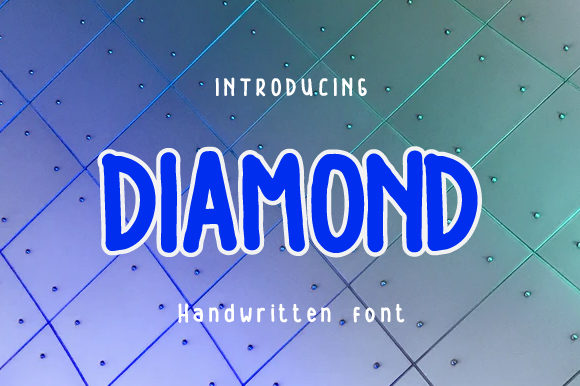
Diamond Font: A Simple yet Elegant Handwritten Font for Designers and Crafters
Diamond Font is a beautiful, simple, and natural handwritten font that has gained popularity among designers and crafters. Its elegance and versatility make it an ideal choice for various design projects, from logos and wedding invitations to headings, t-shirts, and more. In this article, we’ll explore the features and uses of Diamond Font, and why it’s a must-have for any designer or crafter.
What is Diamond Font?
Diamond Font is a handwritten font that exudes simplicity and elegance. Its natural and effortless look makes it perfect for designs that require a personal touch. The font is carefully crafted to ensure that it is legible and easy to read, making it suitable for a wide range of applications.
Features of Diamond Font
- Simple and Natural: Diamond Font has a simple and natural look that makes it perfect for designs that require a personal touch.
- Handwritten: The font is handwritten, which gives it a unique and elegant look.
- Legible: Diamond Font is carefully crafted to ensure that it is legible and easy to read.
- Versatile: The font can be used for various purposes, from logos and wedding invitations to headings, t-shirts, and more.
Uses of Diamond Font
Diamond Font is a versatile font that can be used for a wide range of design projects. Here are some of the most popular uses of the font:
- Logos: Diamond Font can be used to create beautiful and elegant logos for businesses and brands.
- Wedding Invitations: The font is perfect for wedding invitations, adding a touch of elegance and sophistication.
- Headings: Diamond Font can be used to create stunning headings for articles, blog posts, and other written content.
- T-shirts: The font can be used to create unique and stylish designs for t-shirts and other apparel.
- Letterhead: Diamond Font can be used to create elegant letterheads for businesses and individuals.
- Signage: The font can be used to create eye-catching signage for businesses, events, and more.
- Labels: Diamond Font can be used to create beautiful labels for products, files, and more.
- News: The font can be used to create elegant and readable news articles and publications.
- Posters: Diamond Font can be used to create stunning posters for events, promotions, and more.
- Badges: The font can be used to create beautiful badges for events, conferences, and more.
Why Choose Diamond Font?
Diamond Font is a popular choice among designers and crafters due to its elegance, versatility, and simplicity. Here are some reasons why you should choose Diamond Font for your next design project:
- Elegant: Diamond Font adds a touch of elegance and sophistication to any design project.
- Versatile: The font can be used for a wide range of design projects, from logos and wedding invitations to headings, t-shirts, and more.
- Easy to Read: Diamond Font is carefully crafted to ensure that it is legible and easy to read.
- Unique: The font has a unique and handwritten look that sets it apart from other fonts.
Diamond Font is a beautiful, simple, and natural handwritten font that is perfect for designers and crafters. Its elegance, versatility, and simplicity make it an ideal choice for various design projects, from logos and wedding invitations to headings, t-shirts, and more. With its legible and easy-to-read design, Diamond Font is a must-have for any designer or crafter looking to add a touch of elegance and sophistication to their designs.